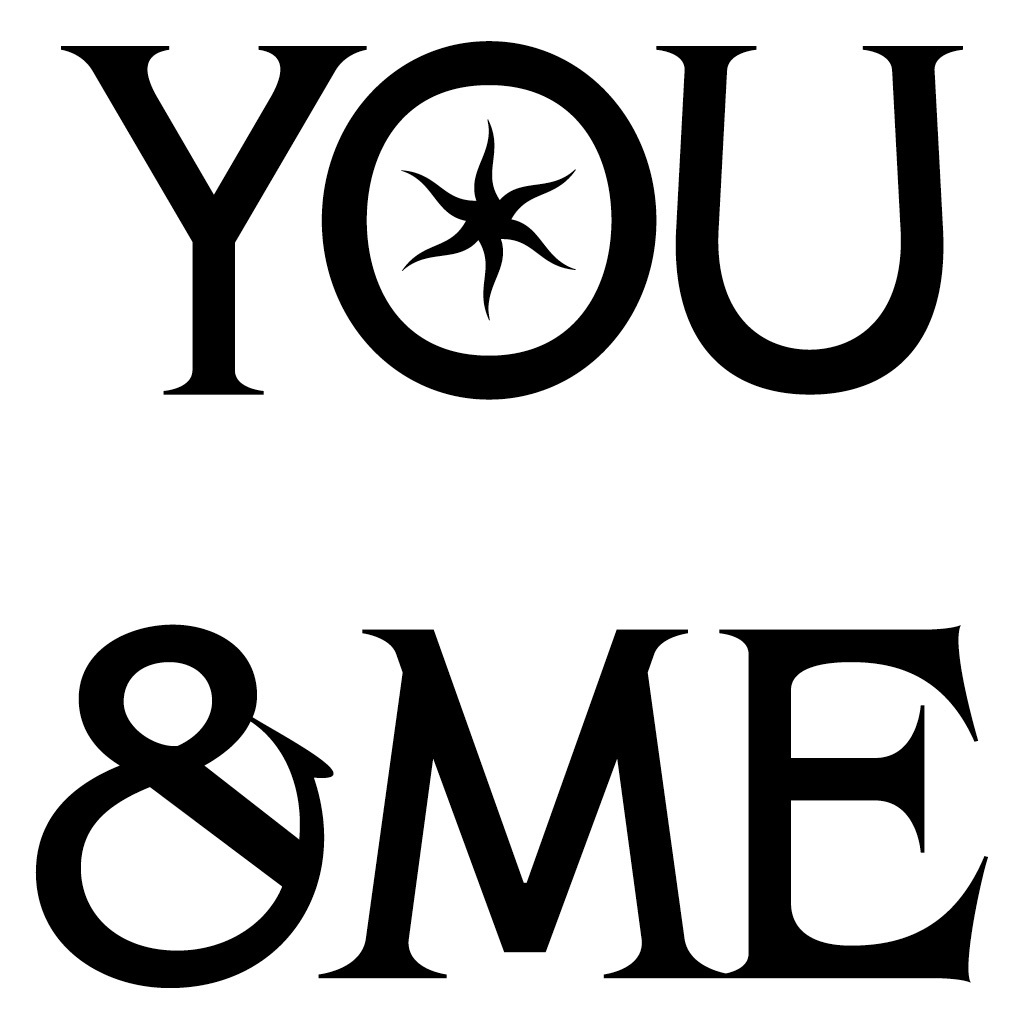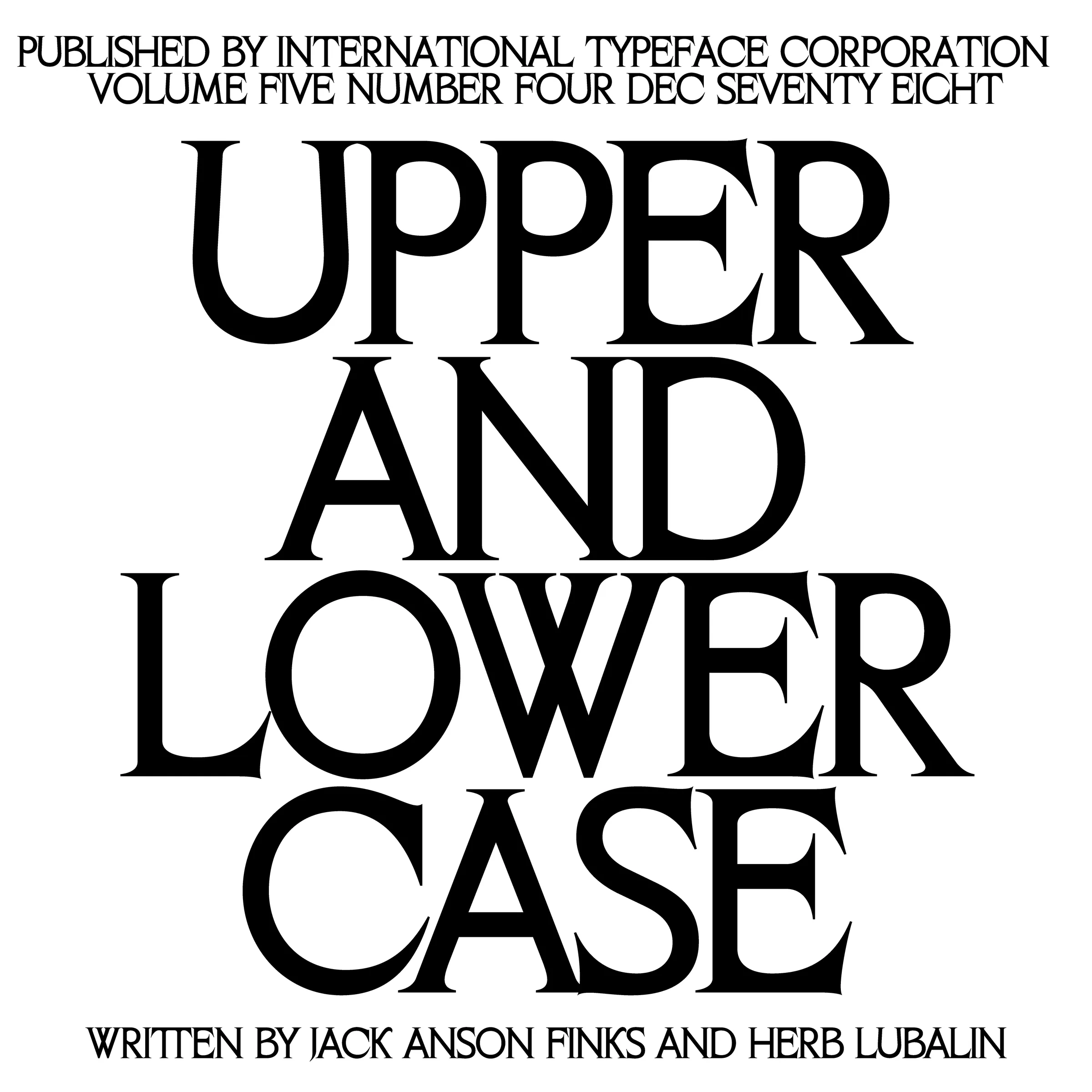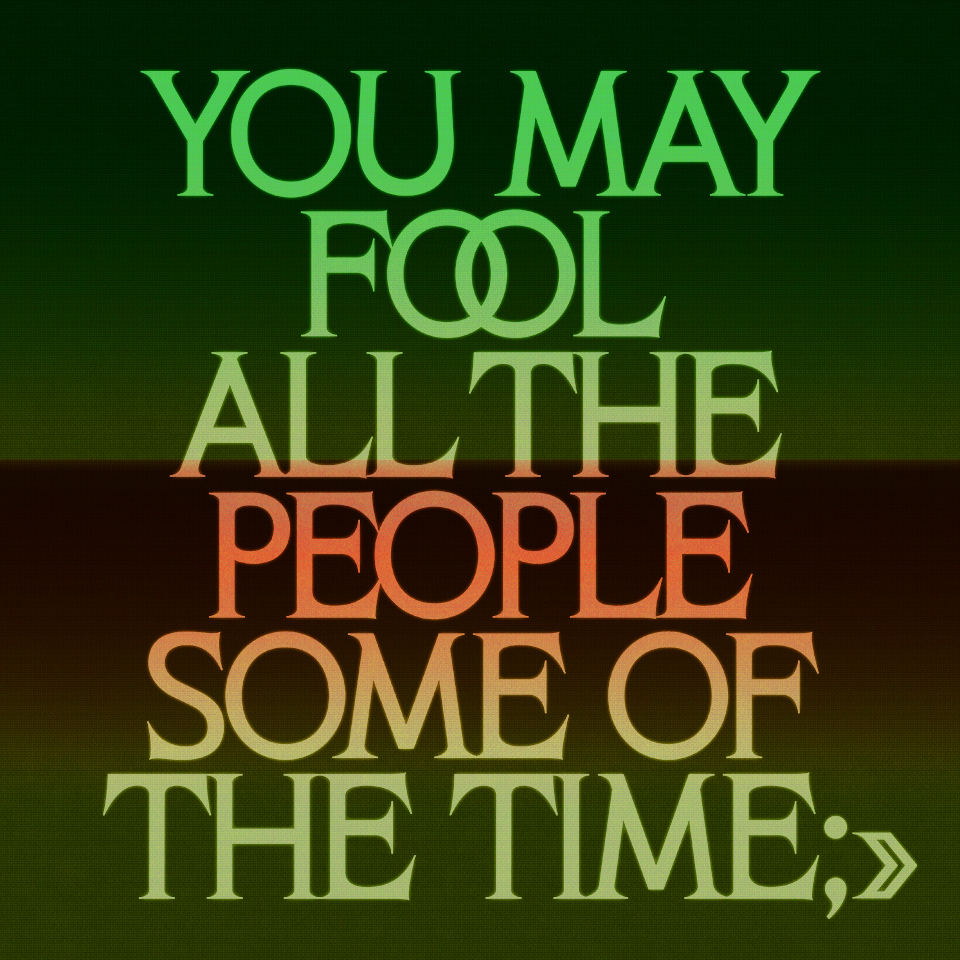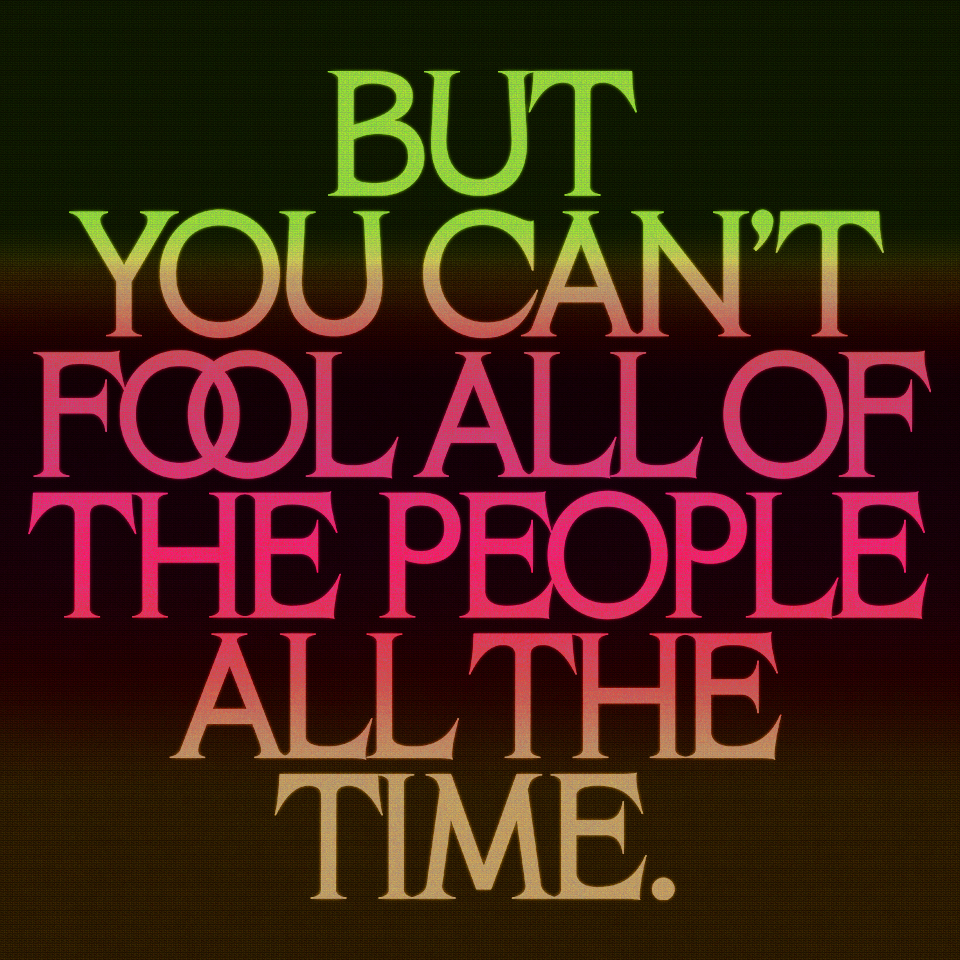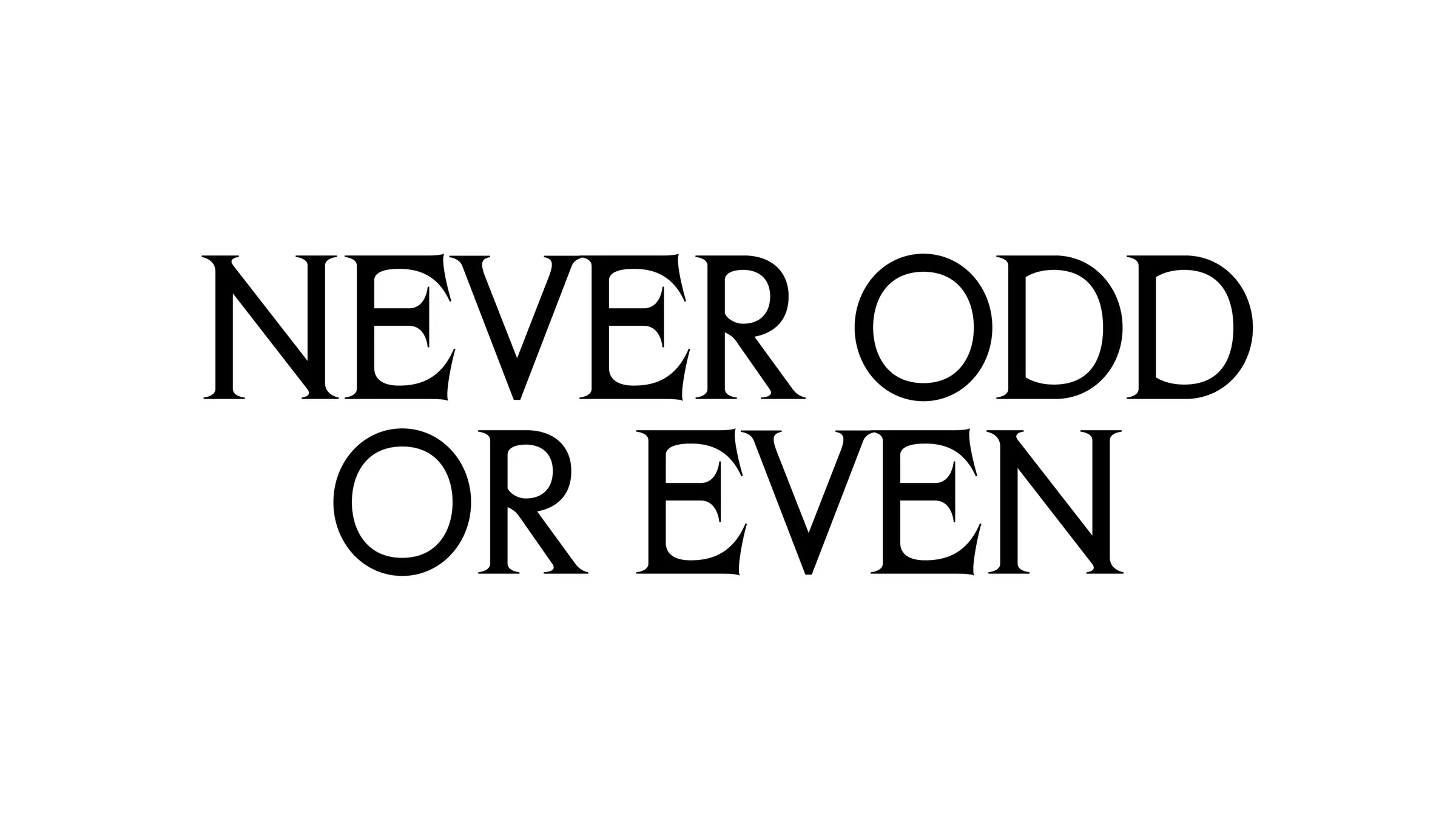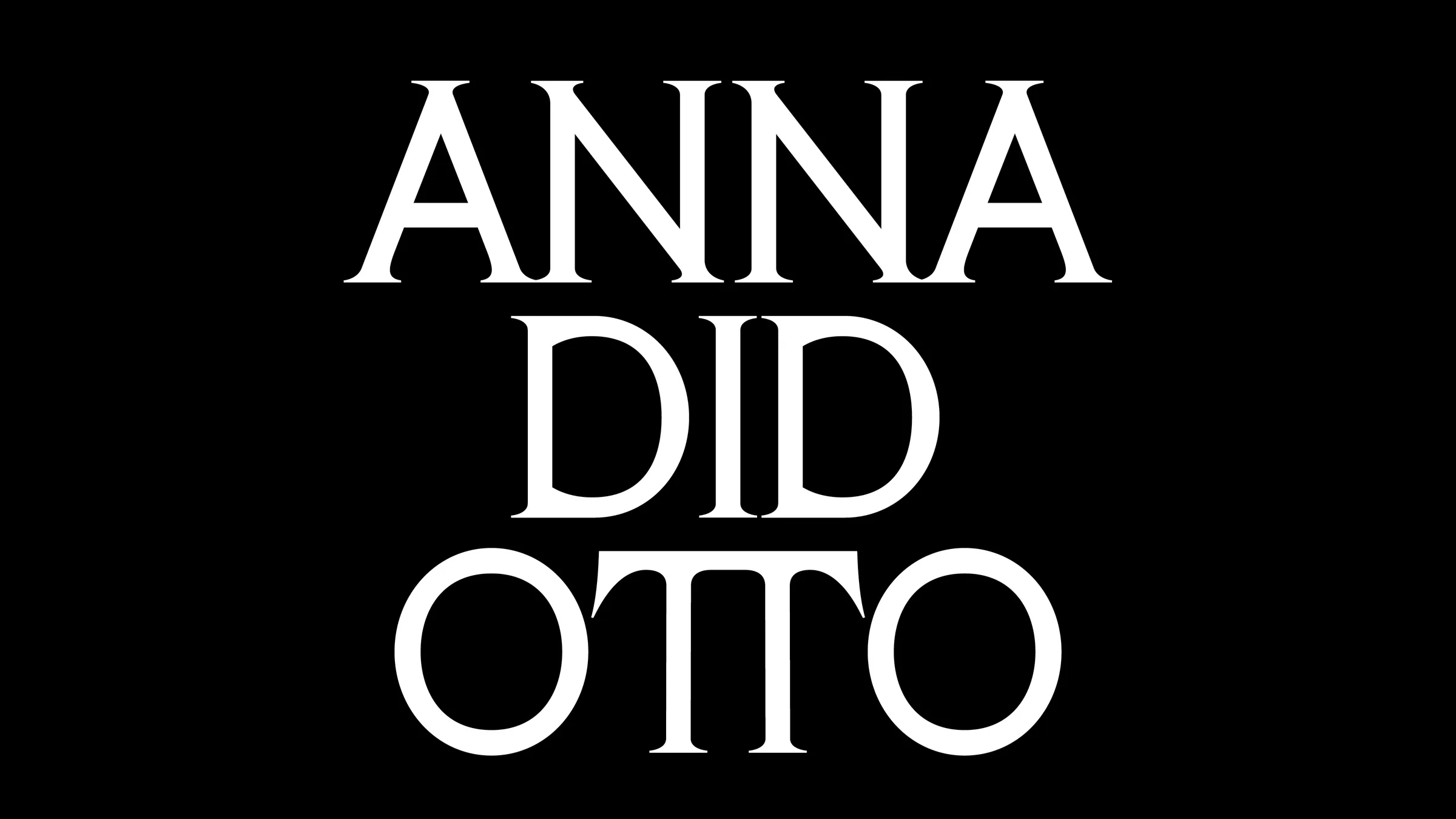
In December 1978, as every year since 1970, ITC published its fourth issue of the year of U&Lc (Volume 5.4). In this issue, Herb Lubalin, as artistic director and author, publishes an article he calls “My Favorite Five, Six, Seven and Nine letter words”. In the introduction, co-author Jack Anson Finks explains that Herb appreciates almost more a word for the form it takes when written than the meaning of the word itself. Phelgm was apparently his favourite word. This character is therefore a kind of small homage to Lubalin, who is a great source of inspiration in every respect. Formally, Phlegm uses several codes from American typography of the 1970s (once again). It was started as a synthesis of several american typefaces, an odd mixture that we put aside for a long time. Then a few months/years later we took over the design of this typeface, we decided to remove the contrast almost entirely, to accentuate the serifs and to give it a Benguiat style fibre, like for his best seller ITC Benguiat which was finally the typeface used for U&Lc’s article about Lubalin's favourite words.
Designed by Eliott Grunewald. Development and mastering by OTT.